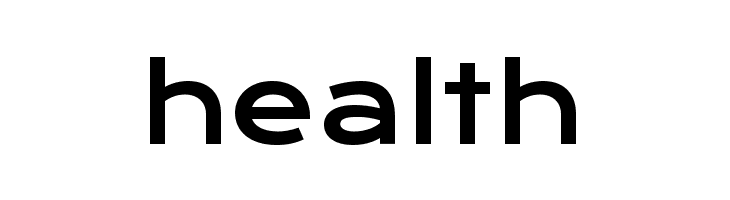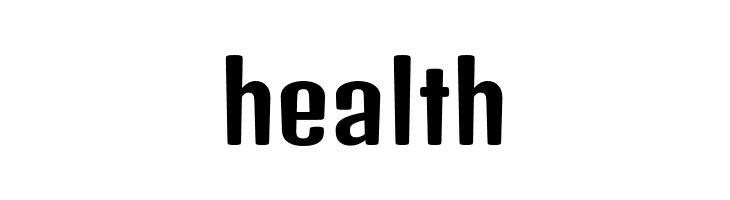
A bold, high-contrast font with dynamic strokes and a modern aesthetic.
A classic serif font with high contrast and elegant strokes.
A modern, geometric sans-serif font with clean lines and excellent readability.
A modern, geometric sans-serif font with excellent readability.
A modern sans-serif font with clean lines and excellent readability.
A modern, bold, and slightly condensed font with rounded characters.
A bold, modern typeface with clean lines and a slightly condensed structure.
A bold, decorative font with a blackletter-inspired style.
A playful and decorative font with unique curves and a whimsical style.